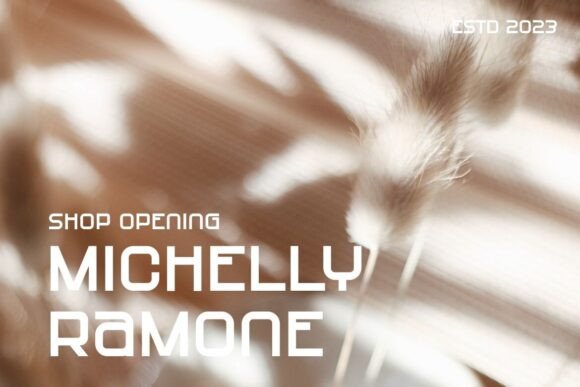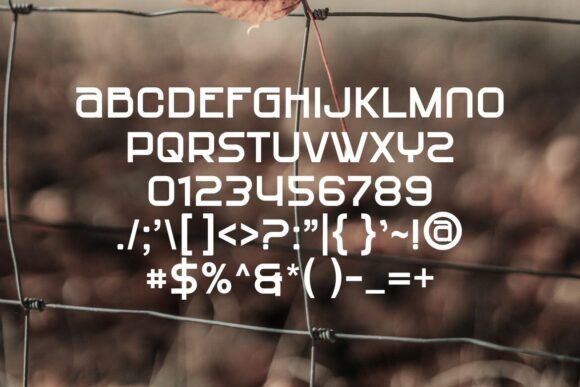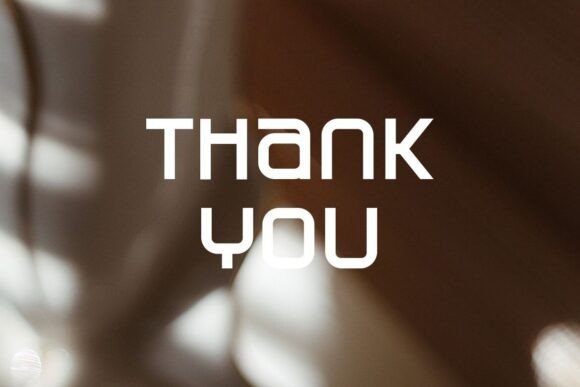
Introduction to Richmoud Font
As a designer, have you ever found yourself in a moment of pure creative bliss, where the perfect font seems to magically bring your project to life? It’s a feeling that’s hard to replicate, but when it happens, it’s truly unforgettable. For me, that moment came when I stumbled upon the Richmoud Font – a game-changing sans serif font that has been a true favorite among designers ever since.
With its sleek, modern design and high-quality typography, the Richmoud Font is an absolute dream come true for any creative project. Whether you’re working on a logo, a website, or a brochure, this font is sure to elevate your design to the next level. And the best part? It’s completely free to download, making it an invaluable resource for designers of all levels.
As a design resource, the Richmoud Font is a must-have for anyone looking to add a touch of sophistication and elegance to their work. Its transparent background and clean lines make it perfect for a wide range of applications, from business cards to billboards. So why settle for anything less when you can have the best? Discover the magic of the Richmoud Font and take your designs to new heights!
Key Features of Richmoud Font
- High-quality, professional design ideal for creative projects, including logos, branding, and typography.
- Includes a range of font styles, including bold, italic, and regular, to cater to diverse design needs.
- Perfect for designers seeking a high-quality design resource to elevate their creative projects.
Honest Review: Richmoud Font
As a designer, I’m always on the lookout for high-quality design resources to enhance my creative projects. Recently, I had the chance to try out the Richmoud Font, and I must say, it’s a great addition to any design arsenal.
- High-quality design that’s perfect for modern projects
- Transparent background, allowing for seamless integration with various design elements
- Comes in a range of styles and weights, giving designers plenty of options for customization
What doesn’t work so well: ⚠️
- Some users may find the font to be a bit too modern, which may not be suitable for traditional or classic design projects
- The font may require some additional styling to achieve the perfect look, depending on the specific design context
Overall, I’m impressed with the Richmoud Font and would definitely recommend it to designers looking for a high-quality, versatile font to enhance their creative projects. With its free download option and transparent background, it’s an excellent design resource to have in your toolkit.
Tips for Getting the Most Out of Richmoud Font
To get the most out of the Richmoud Font, try using it in combination with other design resources, such as graphics and images. You can also experiment with different font sizes and colors to create unique and eye-catching designs.
The Richmoud Font is ideal for a wide range of creative projects, including logos, social media graphics, presentations, and documents. It’s also a great choice for designers who want to create high-quality designs with a transparent background.